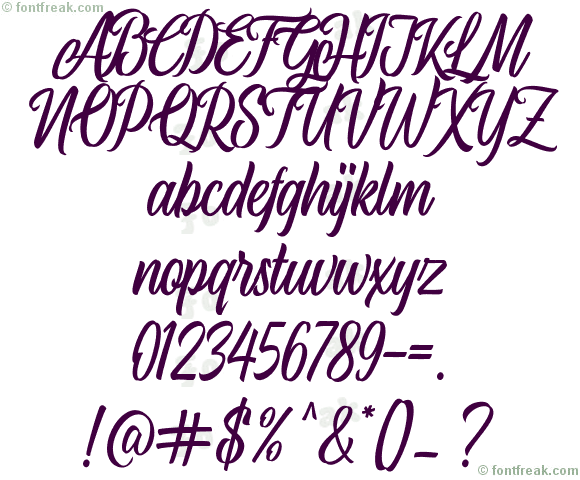
AirplaneScript
About AirplaneScript
AirplaneScript is a stunning script font created by 50Fox Studio, classified under the handwritten category. This font exudes a warm, inviting feel, making it perfect for a variety of creative projects. Characterized by its fluid strokes and elegant swashes, AirplaneScript features a moderate stroke weight that balances legibility with artistic flair. The gentle contrast in the letterforms adds depth, while the generous spacing between characters enhances readability, making it suitable for both digital and print mediums.
This versatile font is ideal for wedding invitations, where its romantic style can beautifully convey heartfelt messages. Additionally, it works wonderfully for branding projects, such as logos for boutique shops or artisanal food products, allowing a personal touch that resonates with customers. Furthermore, AirplaneScript can elevate restaurant menus, lending a sophisticated yet approachable vibe that captures attention. It's also a great choice for social media graphics and content creation, giving posts a unique personality that stands out in crowded feeds.
Target audiences for AirplaneScript include graphic designers looking to add a touch of elegance to their projects, small business owners aiming to create memorable branding, and content creators seeking to enhance visual storytelling through typography.
What sets AirplaneScript apart is its perfect blend of stylish whimsy and practicality. The font's design not only captures the imagination but also ensures that your message is communicated clearly and effectively. With its free download availability, AirplaneScript offers both accessibility and quality, making it a valuable addition to any designer's toolkit. Embrace the charm of AirplaneScript and elevate your creative projects with this enchanting font.